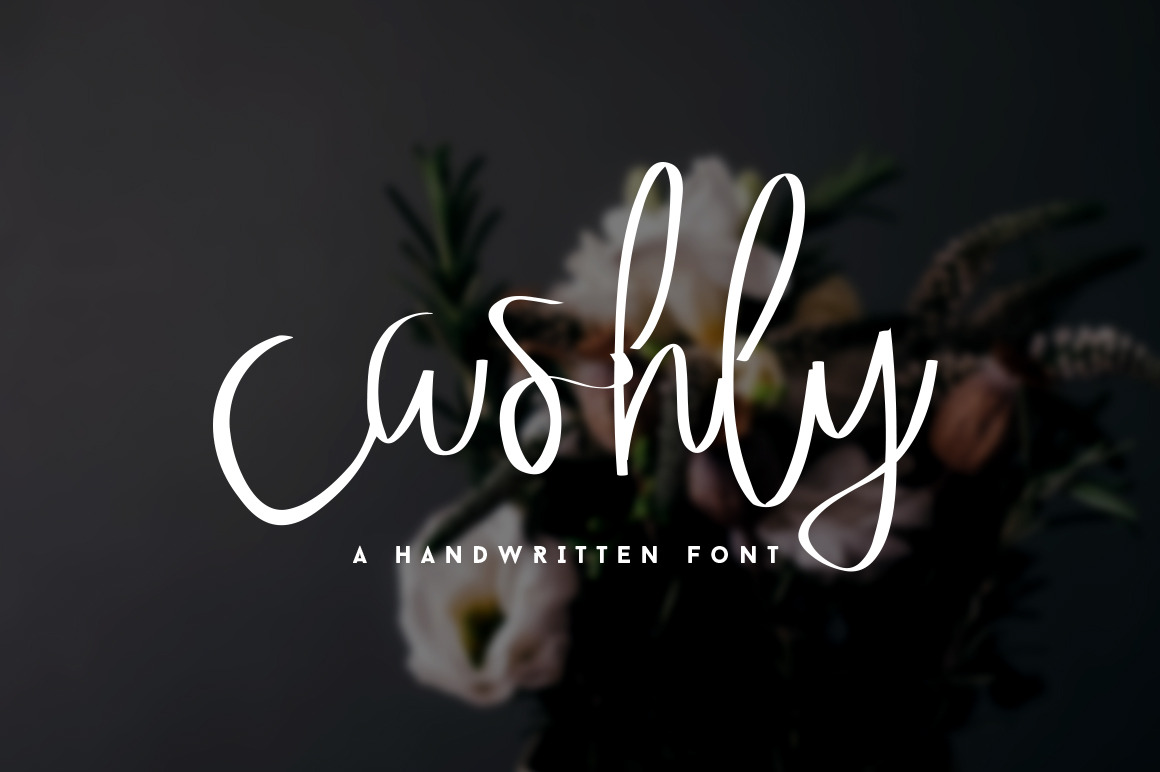
Hand Drawn Script Font Cashly
A great addition to your creative toolbox, this font is a handwritten and rustic feel. Add this to your branding to achieve a genuine and personal touch. The letter sizes slightly differ to create an authentic handwritten feel. All combinations of words should flow elegantly and smoothly.
Cashly (Cashly.ttf) is a set of lowercase only cursive handwritten characters which includes all necessary of punctuation glyphs, numerals. This is lowercase only